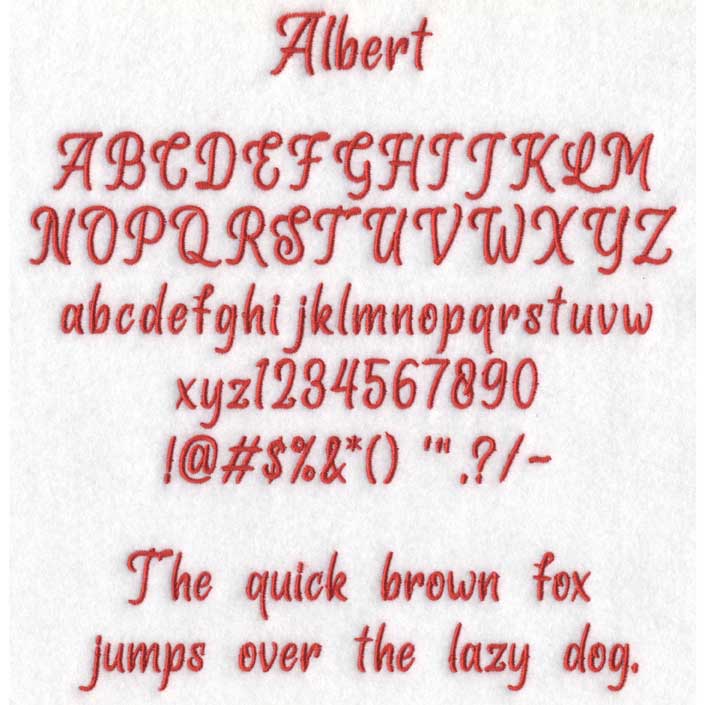
BX Native Embroidery Font: Albert
BX Native Embroidery Font:
Resizable stylized, casual script font in native BX
Each character in this alphabet is individually manually digitized; we do not use a TrueType to Stitches conversion utility to create our fonts. Additionally, stitch attributes such as stitch type, density, compensation, and underlay are optimized for each size available. Choose the size closest to what you need. Shrinking the smallest size is not recommended.
Our fonts were manually digitized; we do not use a TrueType to Stitches conversion utility to create our fonts. Plus, stitch attributes such as density, compensation, and underlay are optimized for each size available.